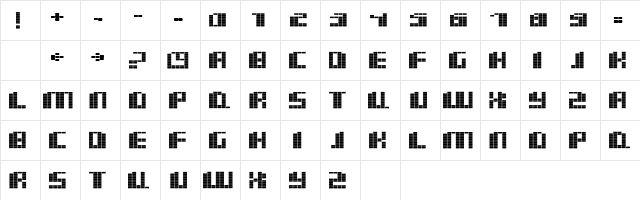
basm Regular
Design Context for basm
basm is a composed and adaptable typeface that performs quietly and consistently across a wide range of design contexts.